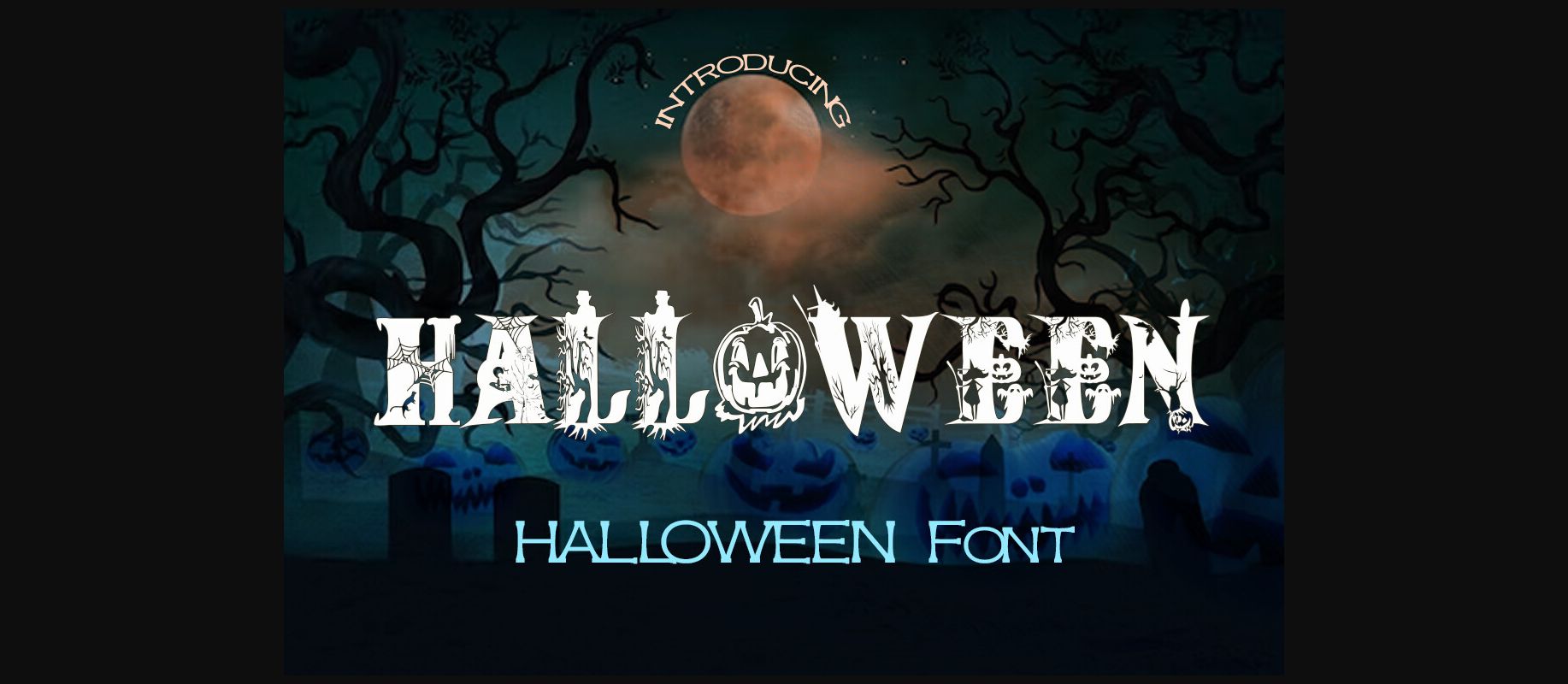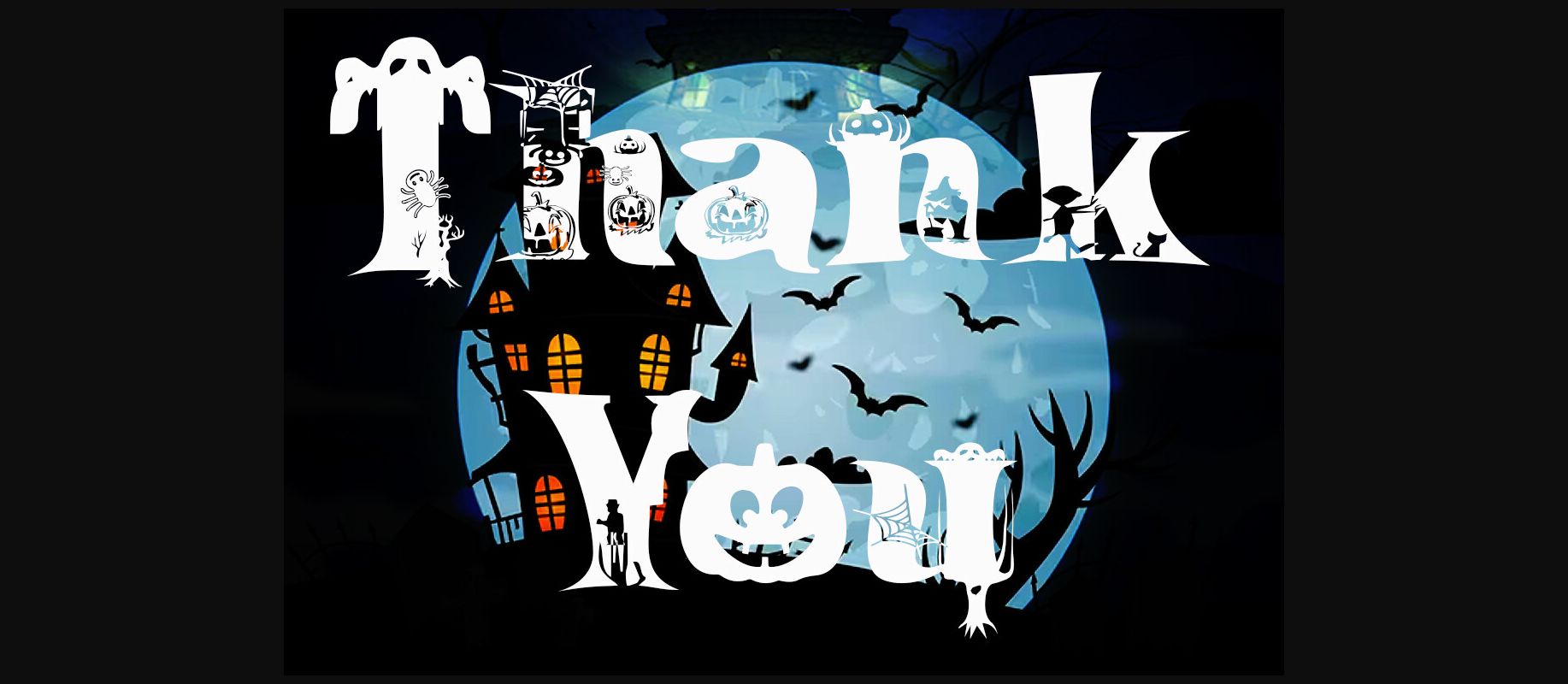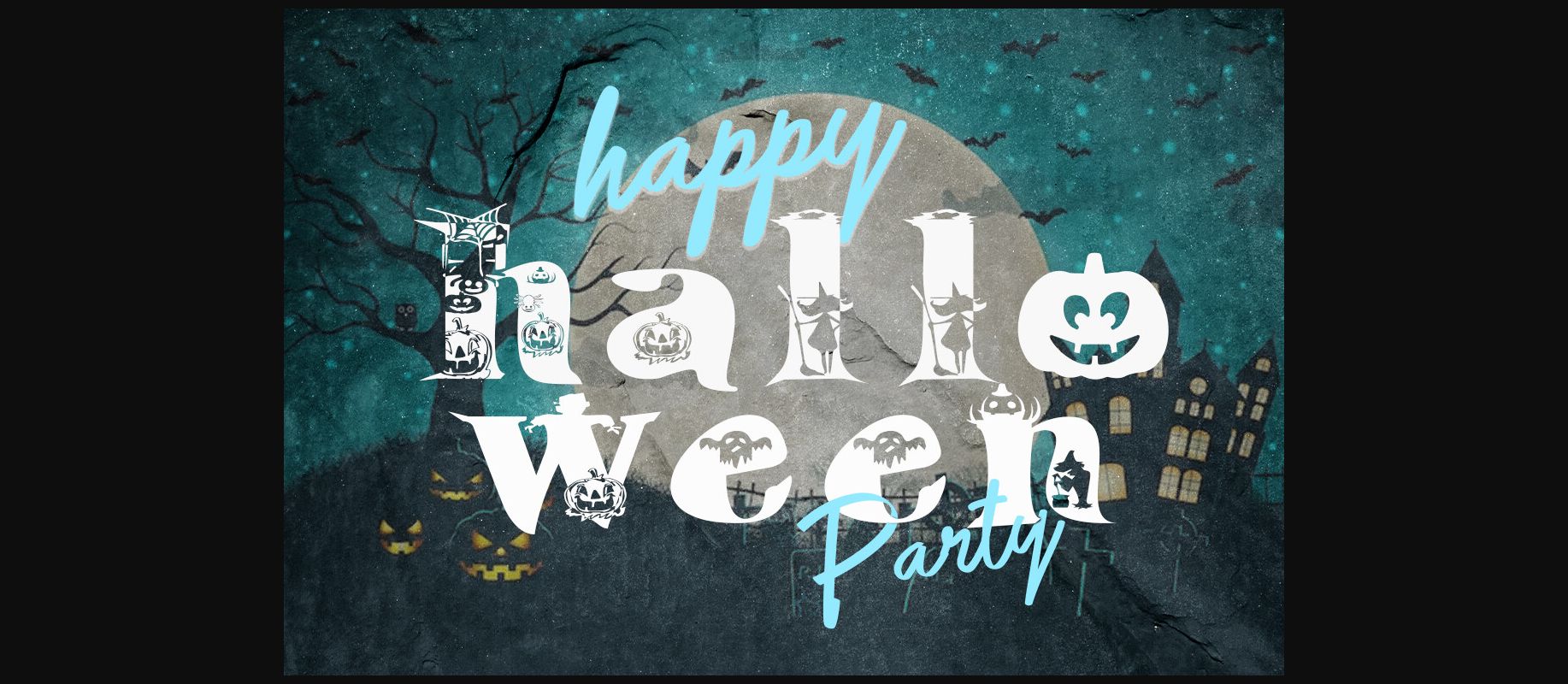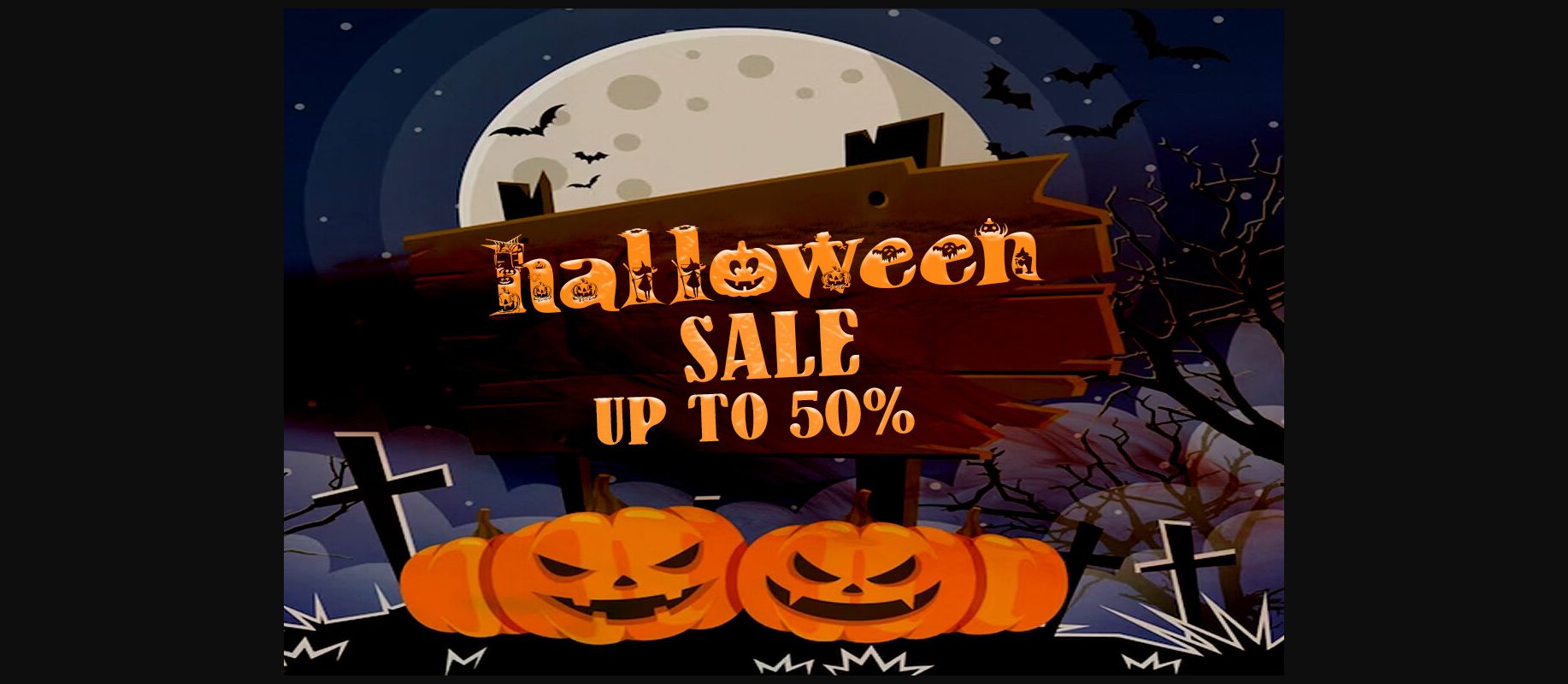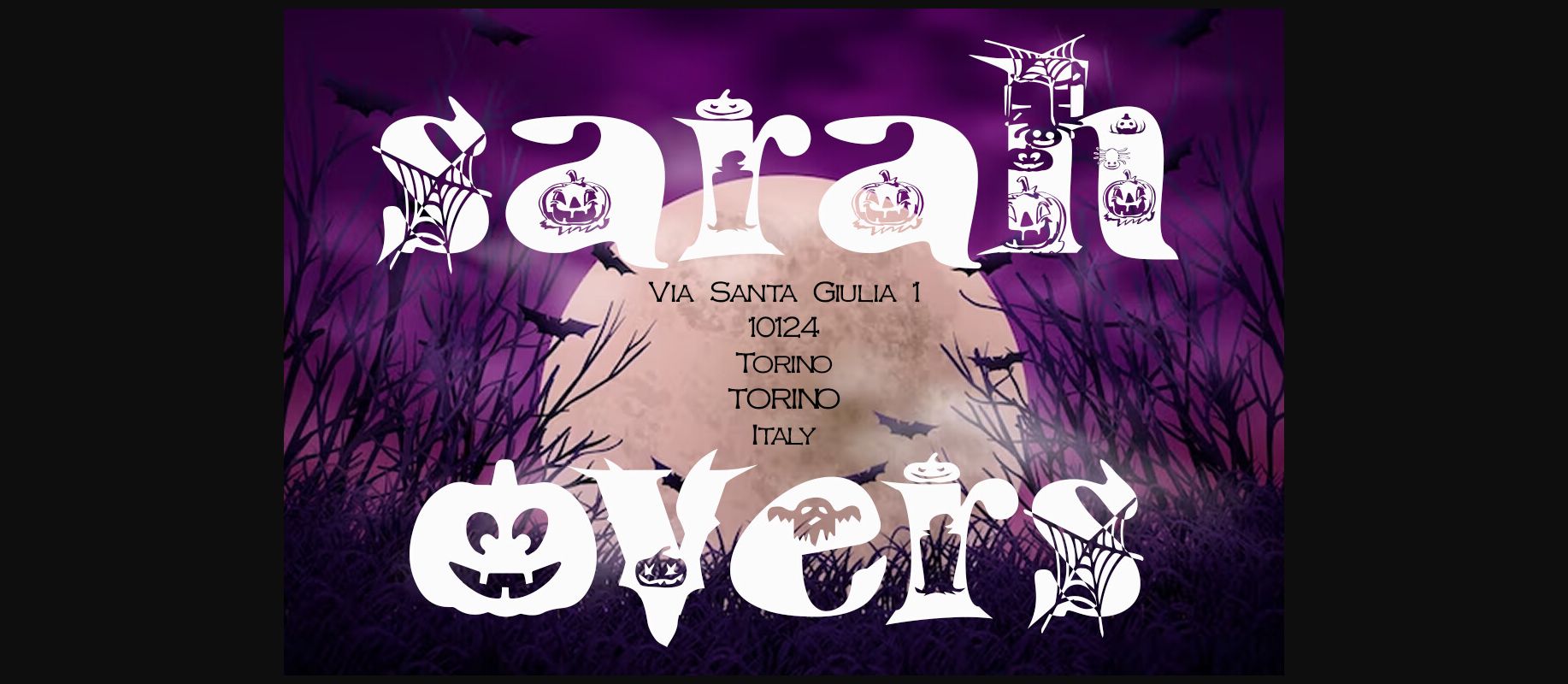
Halloween is a delightful retro Halloween font that brings playful nostalgia to your designs. With its whimsical characters and charming Halloween-themed graphics, this font captures the essence of spooky fun from a bygone era. From adorable ghosts to adorable bats, every letter is adorned with super cute and specific Halloween elements, adding a touch of vintage charm to your projects. Whether you’re creating party invitations, or decorations, or simply want to infuse some retro joy into your Halloween creations.